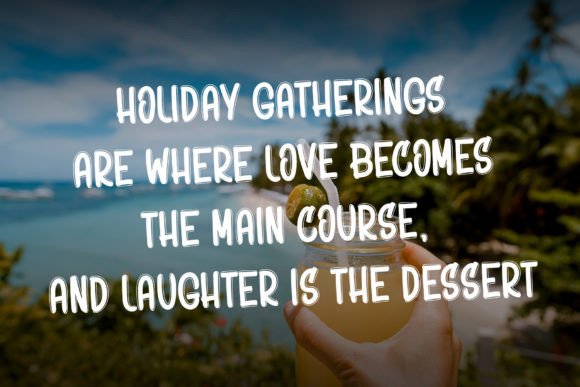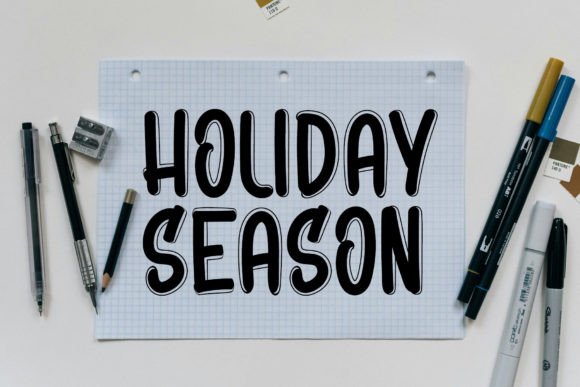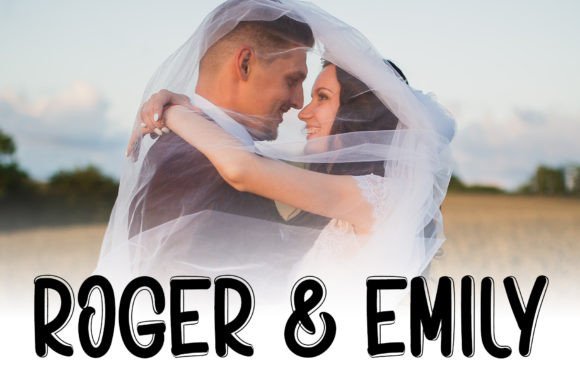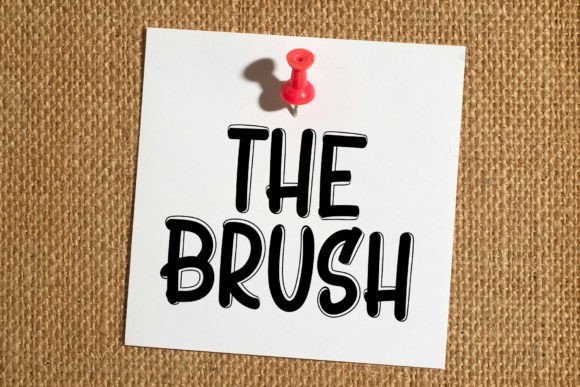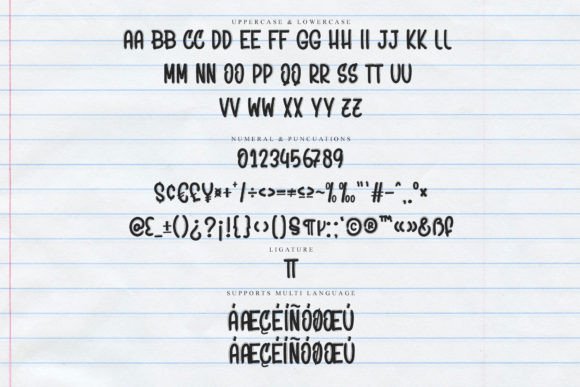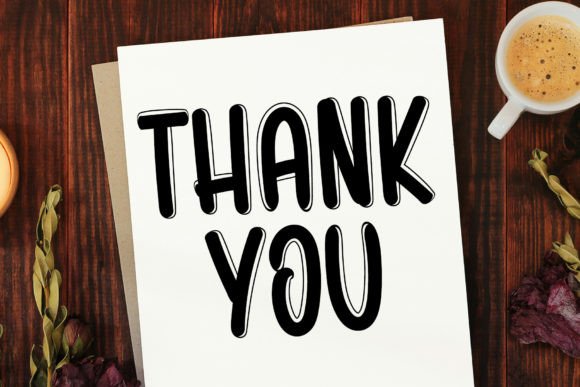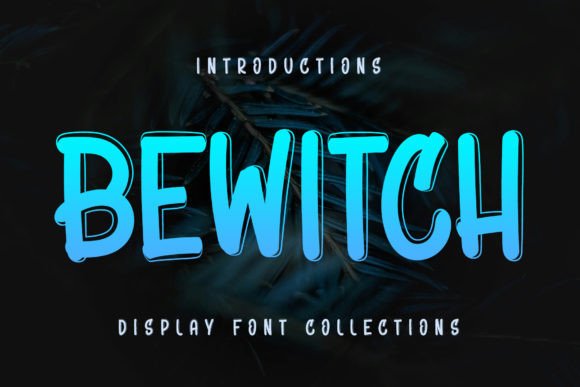
Bewitch Font: The Cute and Charming Display Font to Elevate Your Designs
Are you looking for a font that can add a touch of magic to your designs? Look no further than Bewitch Font, a cute and charming display font that’s sure to brighten up any project. With its whimsical and quirky style, Bewitch Font is perfect for designers and crafters who want to add a bit of personality to their work.
What is Bewitch Font?
Bewitch Font is a display font that’s designed to make a statement. Its unique and playful style is perfect for creating eye-catching headlines, titles, and graphics. The font is carefully crafted to be both elegant and fun, making it suitable for a wide range of design projects, from invitations and posters to social media graphics and branding materials.
Key Features of Bewitch Font
- Cute and charming design: Bewitch Font has a distinctive and adorable design that’s sure to capture attention.
- Whimsical and quirky style: The font’s playful style adds a touch of personality to any design.
- Elegant and fun: Bewitch Font strikes the perfect balance between elegance and playfulness.
- Versatile: The font is suitable for a wide range of design projects, from digital to print.
Benefits of Using Bewitch Font
So, why should you choose Bewitch Font for your designs? Here are just a few benefits of using this charming font:
- Adds personality to your designs: Bewitch Font helps you create designs that stand out from the crowd and reflect your unique style.
- Easy to read: Despite its playful style, Bewitch Font is clear and easy to read, making it perfect for use in headlines and titles.
- Customizable: You can use Bewitch Font in a variety of contexts, from digital to print, and adjust its size and style to suit your needs.
- Time-saving: With Bewitch Font, you can create stunning designs in no time, without having to spend hours searching for the perfect font.
How to Use Bewitch Font
Using Bewitch Font is easy! Here are a few tips to get you started:
- Pair it with other fonts: Combine Bewitch Font with other fonts to create a unique and eye-catching design.
- Experiment with colors: Try out different colors and textures to add depth and interest to your design.
- Use it for headlines and titles: Bewitch Font is perfect for use in headlines and titles, where its playful style can really shine.
Who is Bewitch Font for?
Bewitch Font is perfect for:
- Graphic designers: If you’re looking for a font that can add a touch of personality to your designs, Bewitch Font is a great choice.
- Crafters: Whether you’re creating handmade cards, scrapbooking pages, or other craft projects, Bewitch Font is a great addition to your design toolkit.
- Small business owners: If you want to create eye-catching branding materials, such as logos, posters, or social media graphics, Bewitch Font is a great option.
In conclusion, Bewitch Font is a cute and charming display font that’s perfect for designers and crafters who want to add a touch of magic to their designs. With its whimsical and quirky style, Bewitch Font is sure to brighten up any project and help you create stunning designs that stand out from the crowd.